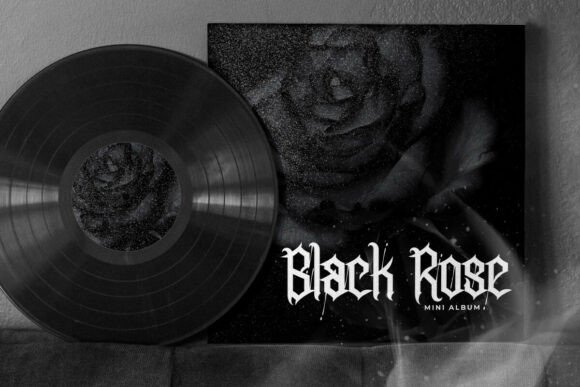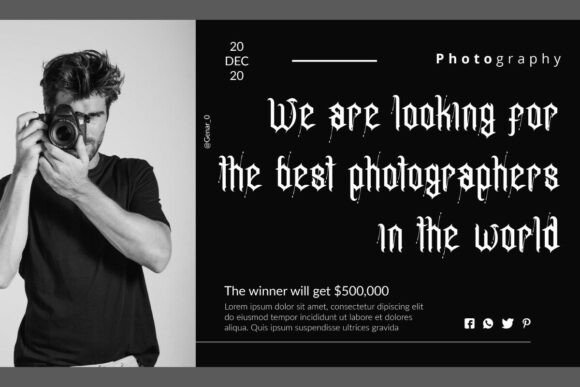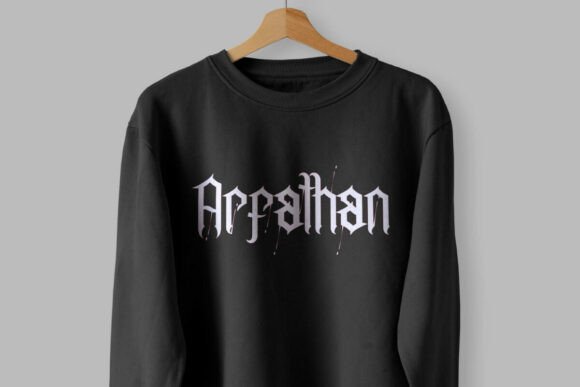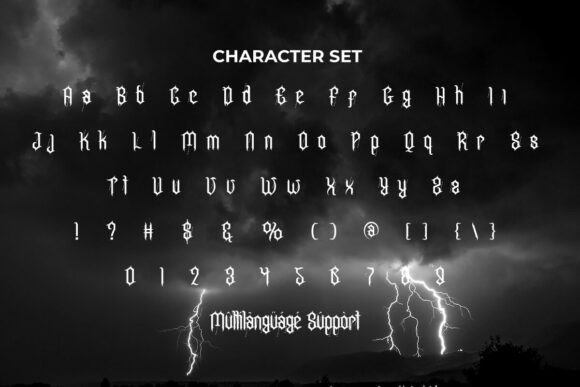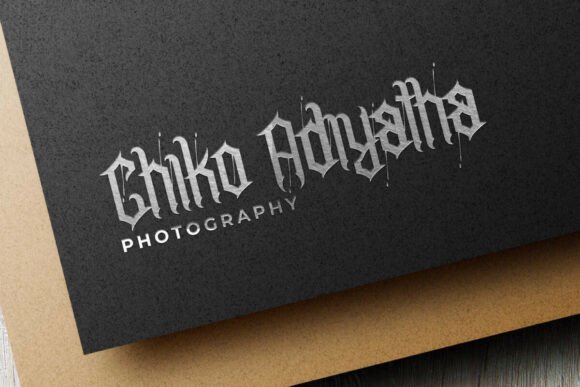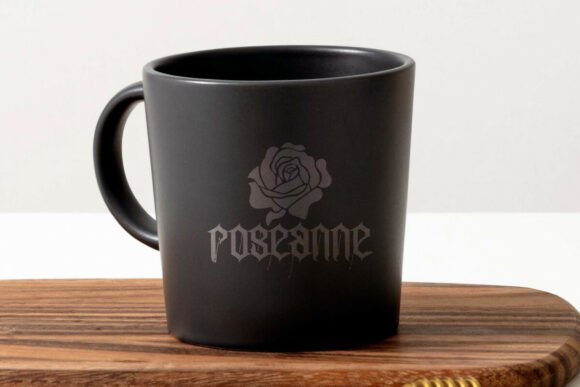
The Perfect Storm of Creativity
Have you ever stared at a blank page, searching for that perfect spark to ignite your design project? Maybe it’s the title of a new movie, a branding campaign for a luxury fashion label, or a poster for an upcoming music festival. Whatever it is, you know you need something that will make your design stand out and leave a lasting impression.
Enter the Friday Storm Font, a majestic blackletter display font that exudes a sense of sinister luxury and sophistication. Designed by NoahType, this font is not just a design element, but a key to unlocking the full potential of your creative project. With its versatility and readability, the Friday Storm Font is a valuable tool for designers looking to add a dramatic edge to their work.
Whether you’re working on a media project, creating high-impact branding, or designing marketing materials, the Friday Storm Font is an essential addition to your design toolkit.
Friday Storm Font Key Features
- Unique Characteristics: This font features a distressed, weathered look with a mix of bold and elegant lines, making it ideal for creating a vintage or retro aesthetic.
- Language Support: Friday Storm Font supports a wide range of languages, including Latin, Cyrillic, and Greek alphabets, making it suitable for global design applications.
- Font Weight: The font comes in 3 different weights: Light, Regular, and Bold, allowing designers to choose the perfect weight to match their design style.
Designer Review: Friday Storm Font
As a designer, I’ve had the chance to work with various fonts, and I must say, the Friday Storm Font has both impressed and disappointed me. ✨
- The font’s unique, hand-drawn style gives it a touch of personality that’s perfect for creative projects.
- The bold weight is fantastic for headings, and the light weight works well for body text.
- The font’s imperfections, such as the subtle unevenness of the letterforms, add to its charm and make it feel more human.
- The font’s readability can suffer in certain situations, particularly at smaller sizes or when used in large blocks of text.
- The font’s lack of uniformity across different weights and styles can make it difficult to use consistently.
- The font’s aesthetic may not be suitable for all types of projects, particularly those that require a more traditional or corporate look.
Overall, I think the Friday Storm Font is a great choice for designers who want to add some personality and whimsy to their projects. However, it may not be the best fit for every project, and its limitations should be carefully considered before use.
Common Use Cases for Friday Storm Font
The Friday Storm font is perfect for:
- Designing marketing materials, such as brochures